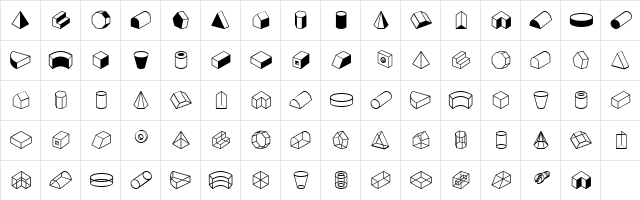
LTShapeshifter Medium
Design Context for LTShapeshifter Typeface
LTShapeshifter is a composed and adaptable typeface that performs quietly and consistently across a wide range of design contexts.
Pro Tip: Use LTShapeshifter in both headline and body roles to test its range before committing to a single application.